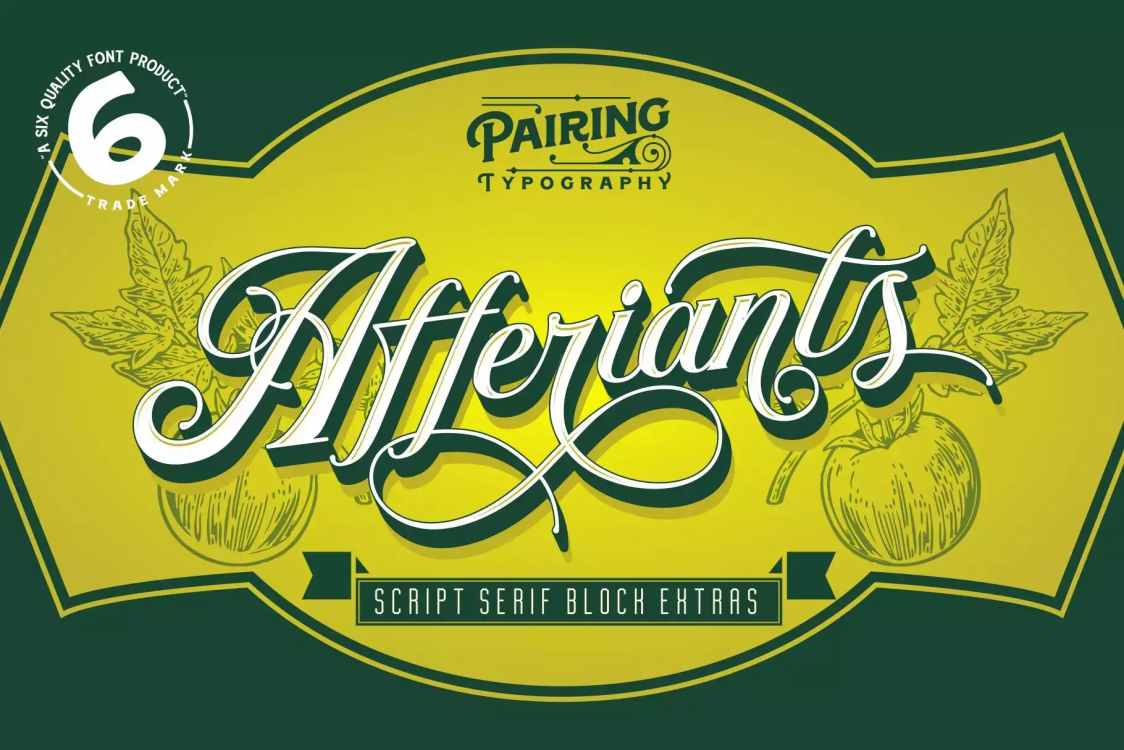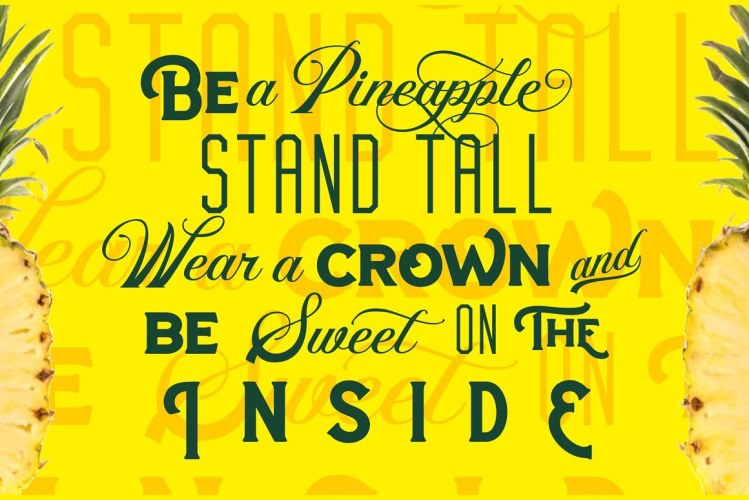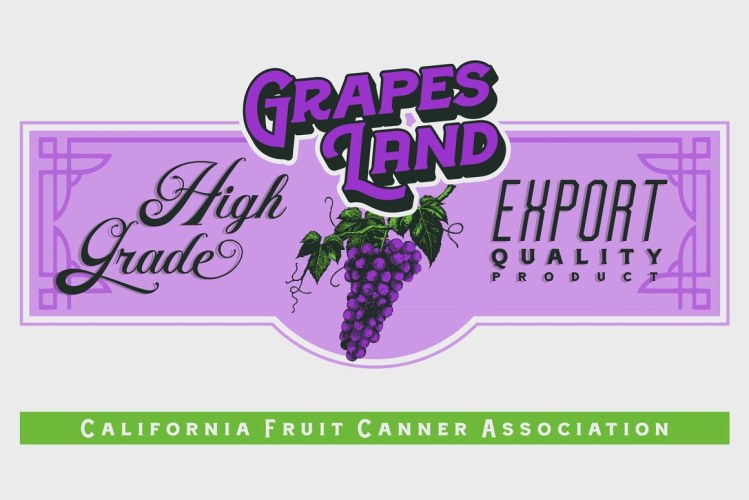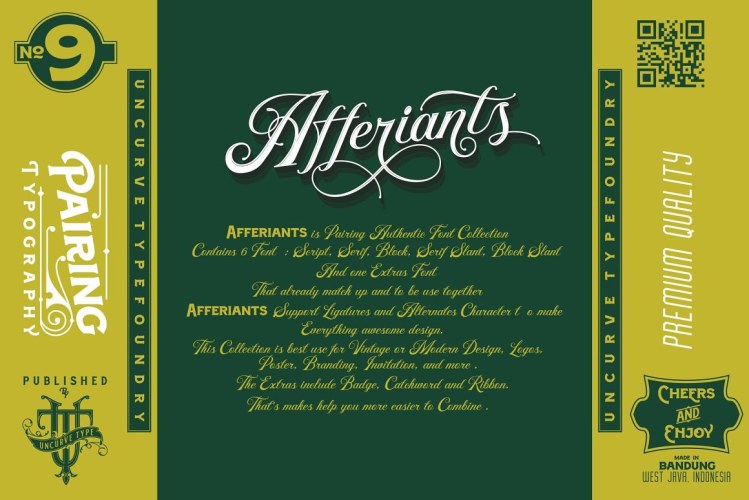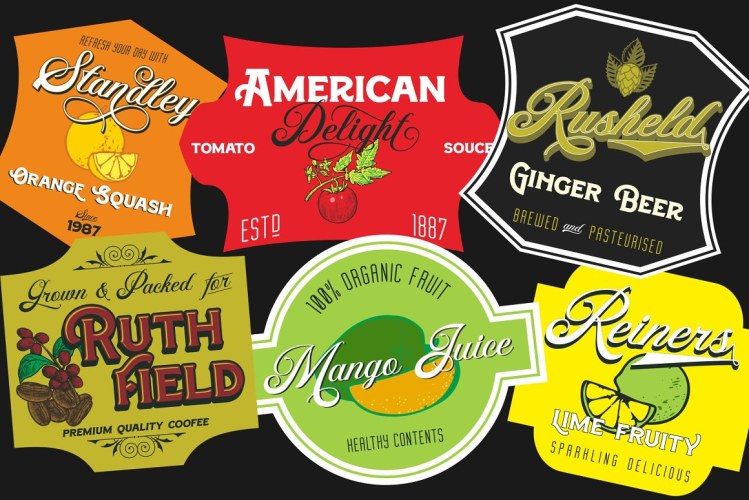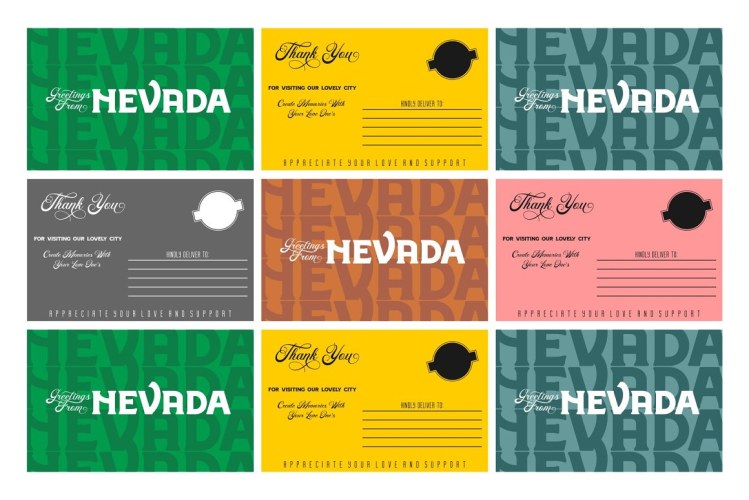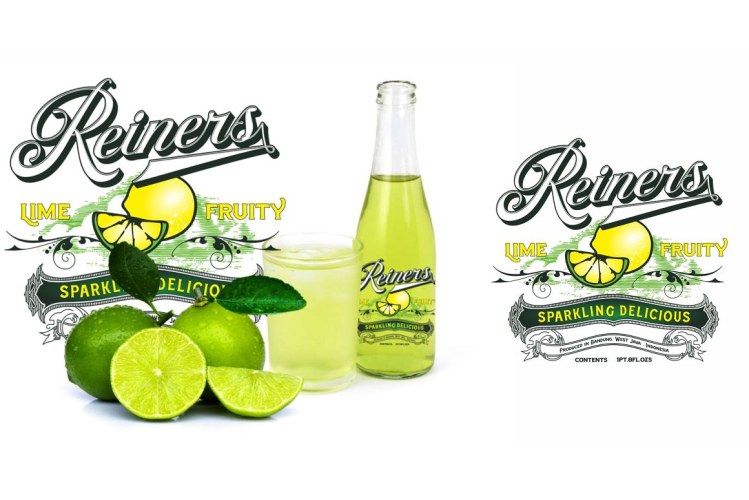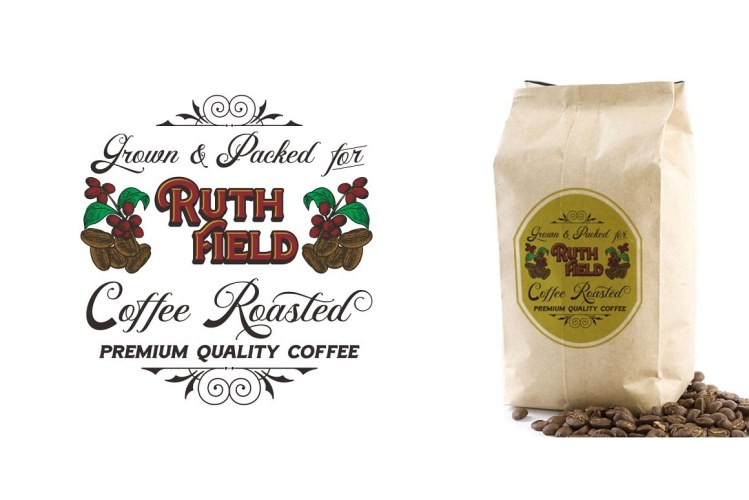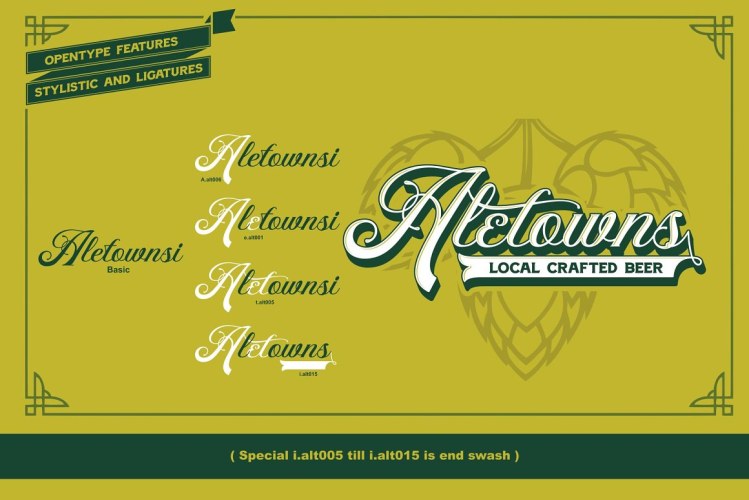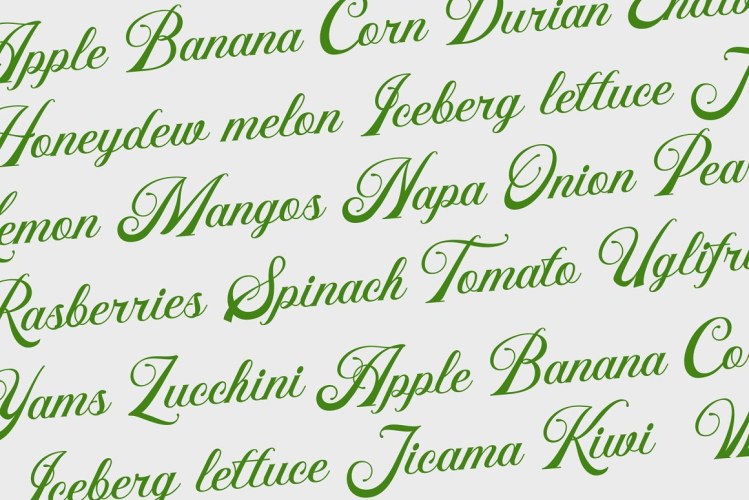
Afferiants Font Family
Afferiants is pairing authentic font collection. Thats already match up and to be use together. Afferiant support ligatures and alternates character to make everything excellent design. This Collection best uses vintage or modern design, logo, poster, advertising, branding, invitation, postcard, and more. The extras include a badge, catchword and ribbon. It makes you more easier to combine.
Afferiants Font Family is a Script And Handwritten font that brings a professional and versatile look to your projects. Afferiants is pairing authentic font collection.